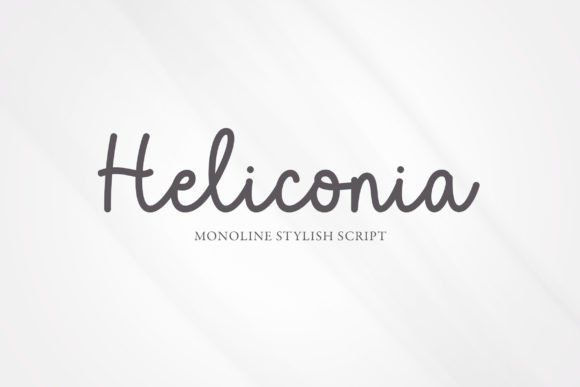
Journey into the enchanting realm of Heliconia Font, a script font with untamed beauty and mesmerizing charm. Crafted with meticulous care, each letter dances with elegance, carrying tales of distant lands and forgotten treasures. Heliconia is the embodiment of sophistication, a font that commands attention without overpowering, leaving an indelible mark on the hearts of those who behold it.
Unleash your creativity with Heliconia, a font designed to captivate and inspire. Its graceful curves and sweeping lines evoke a sense of wonder, inviting you to embark on extraordinary storytelling adventures. Whether you're a seasoned designer or just starting your creative journey, Heliconia is your perfect companion, ready to transform your words into works of art.
With Heliconia's versatility, the possibilities are endless. Its enchanting script style lends itself effortlessly to a multitude of projects, from elegant wedding invitations and heartfelt love letters to captivating social media posts and eye-catching branding materials. Let Heliconia be your muse, guiding you to create designs that resonate with your audience and leave them utterly captivated.
Elevate your designs to new heights with Heliconia. Its intricate details and carefully placed flourishes add a touch of luxury and refinement to any project. Whether you're crafting a personal logo, designing a stunning website, or creating captivating marketing materials, Heliconia will elevate your work, making it stand out from the mundane and leaving a lasting impression.
But Heliconia is more than just a pretty face. It's a font that's easy to use and incredibly versatile. With full PUA encoding, you can access all of Heliconia's glyphs with ease, ensuring that your creative vision knows no bounds. Whether you're using it on Windows, Mac, or even in your favorite design software, Heliconia is ready to bring your ideas to life effortlessly.
In a world of ordinary fonts, dare to be different, dare to stand out. Choose Heliconia, the font that ignites creativity, captivates audiences, and elevates your designs to new heights. Its beauty, versatility, and ease of use make it the perfect choice for those who seek to create truly remarkable designs.